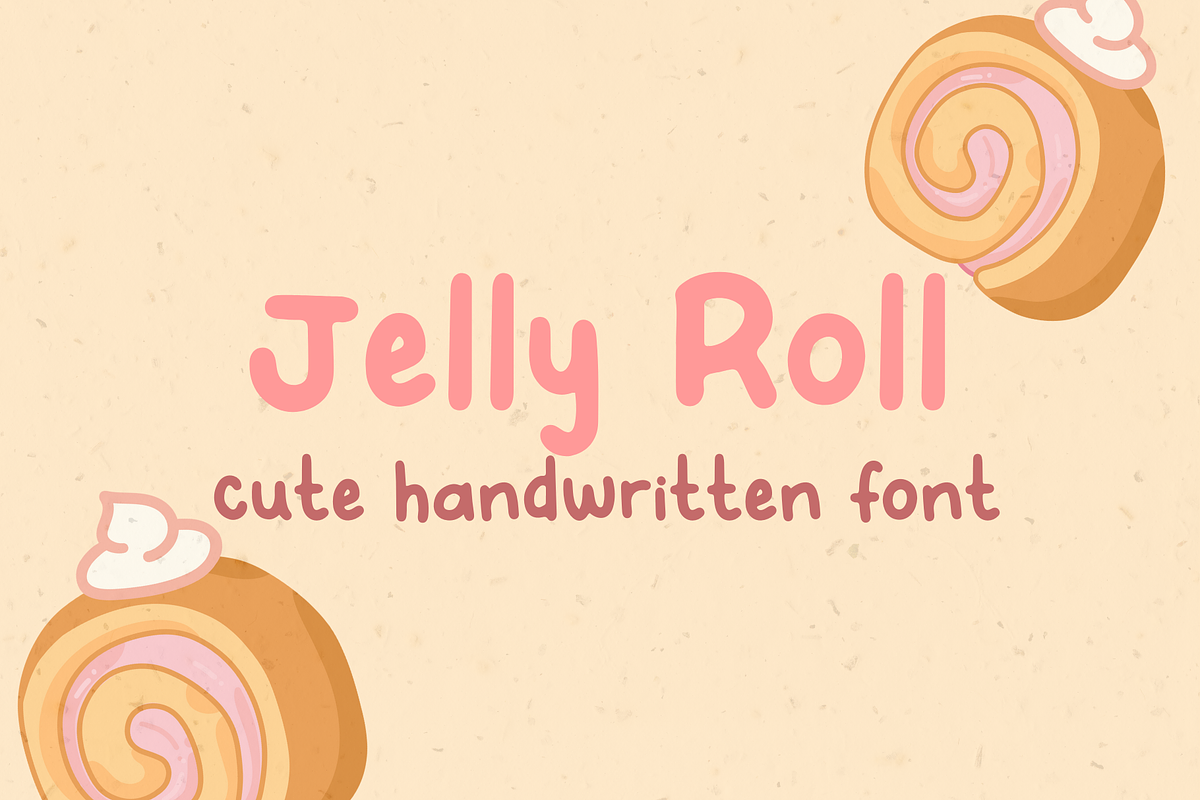
Jelly Roll - Handwritten Cute Font Free Download is an adorable and bubbly typeface that adds a sprinkle of sweetness to any design. With its soft, rounded letters and playful handwritten style, this font is perfect for children’s books, birthday invites, kawaii merchandise, social media posts, and classroom materials. It’s cheerful, lighthearted, and bursting with personality.
Designed to be fun and friendly, Jelly Roll is easy to read while maintaining a whimsical, handcrafted vibe. It’s ideal for both print and digital use—anywhere you want to spread joy and charm.